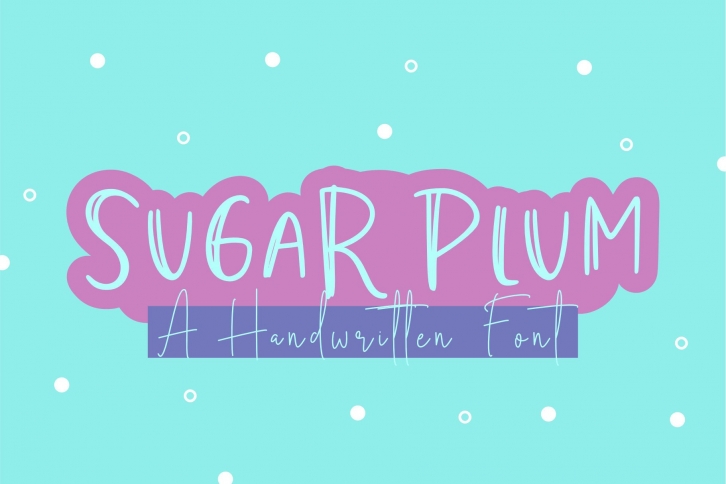
Sugar Plum is a handwritten block sketch font with all caps characters. Sugar Plum is perfect for quotes, t-shirts, product packaging, branding, social media posts, posters, or anything that needs a whimsical touch.